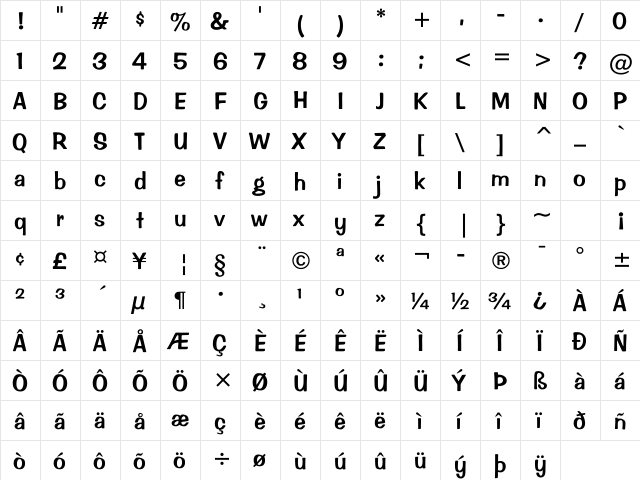
Impressed Regular
Design Context for Impressed Typeface
Impressed takes a measured approach to typography — its balanced proportions and neutral character make it a reliable workhorse for both digital and print work.
Pro Tip: Pair Impressed with a font of contrasting weight or personality to build a more expressive typographic hierarchy.